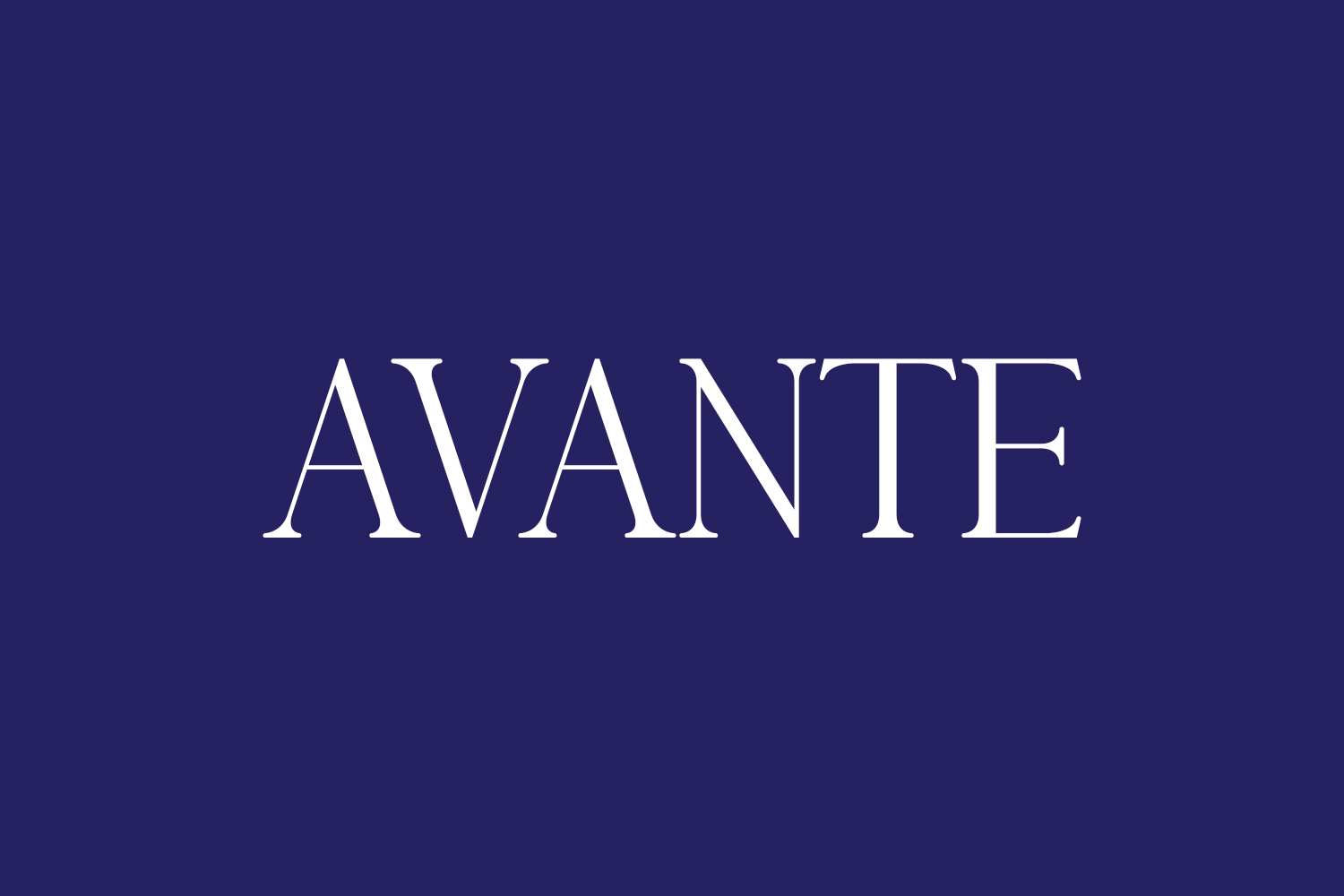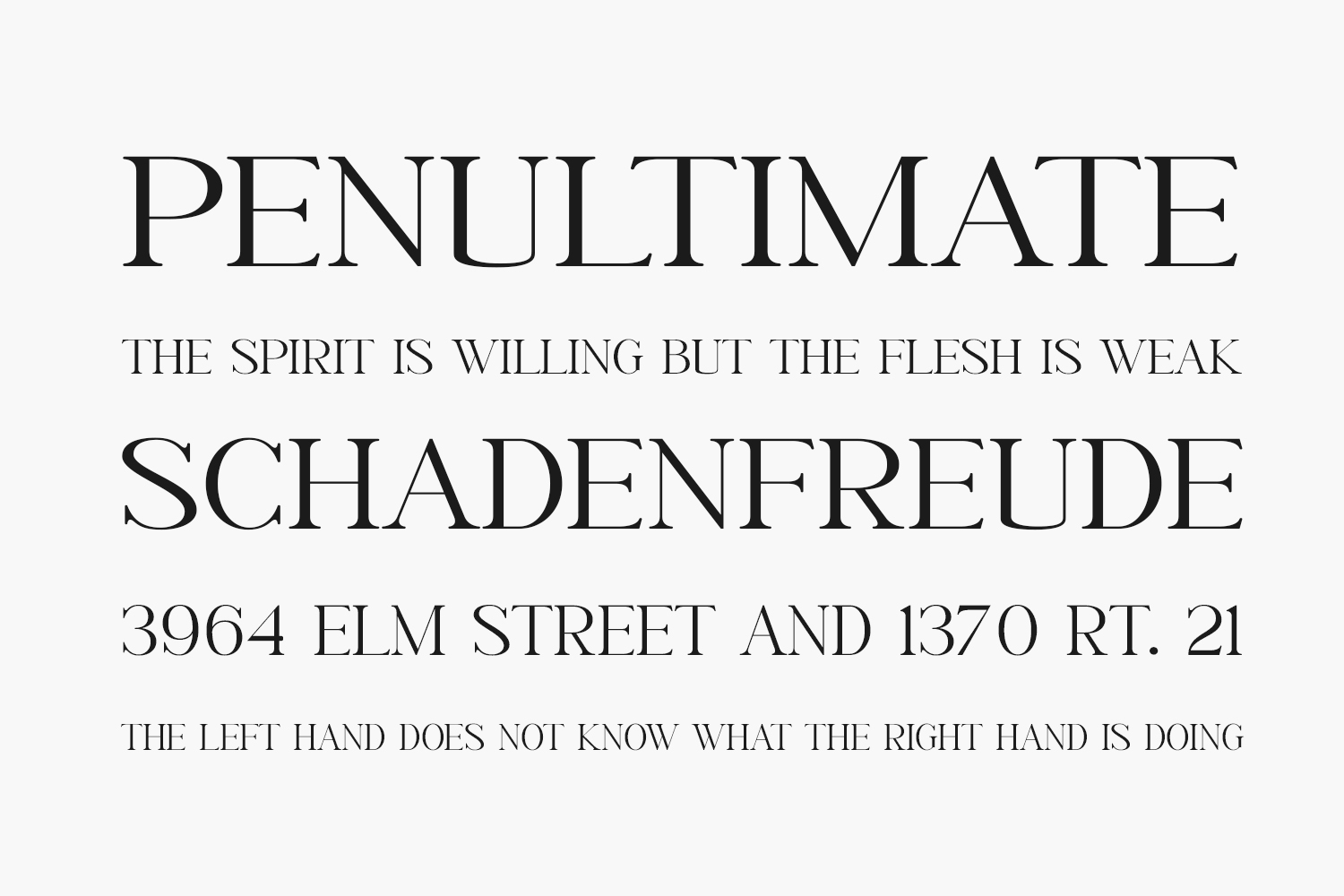
Avante Free Font is a chic serif font, draws inspiration from iconic minimalist logos. Tailored for designing templates, brochures, videos, advertising materials, logos, and beyond, it effortlessly adds a touch of style to a wide range of creative projects. Avante Free Font was designed by Biham Santoso and is free for personal use only. Please purchase the full version for commercial use.
Designed by Biham Santoso